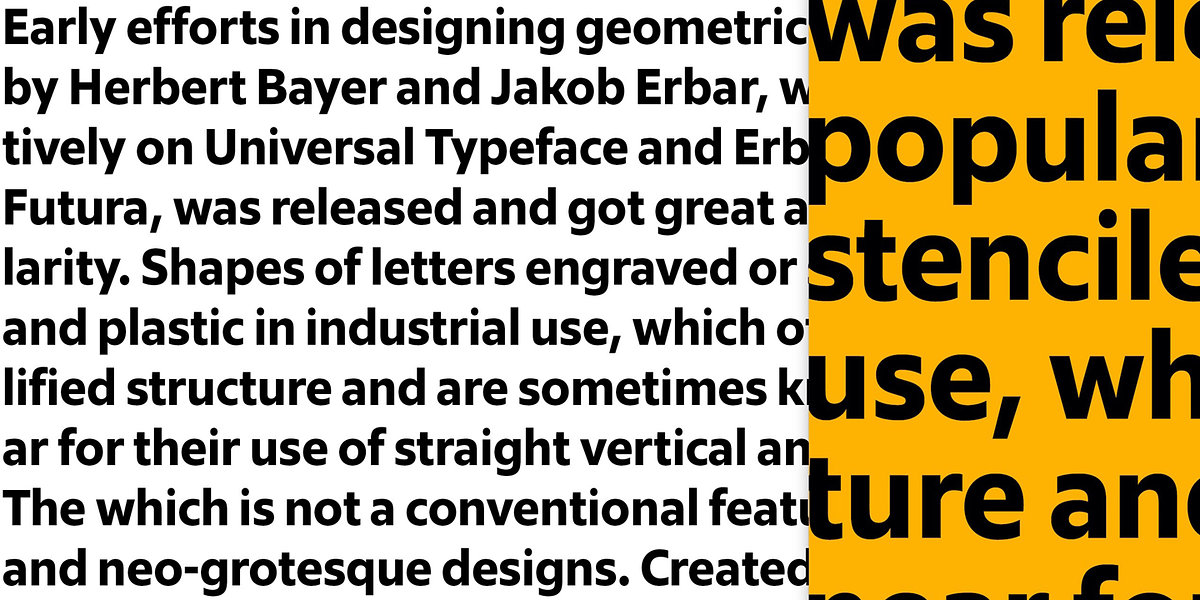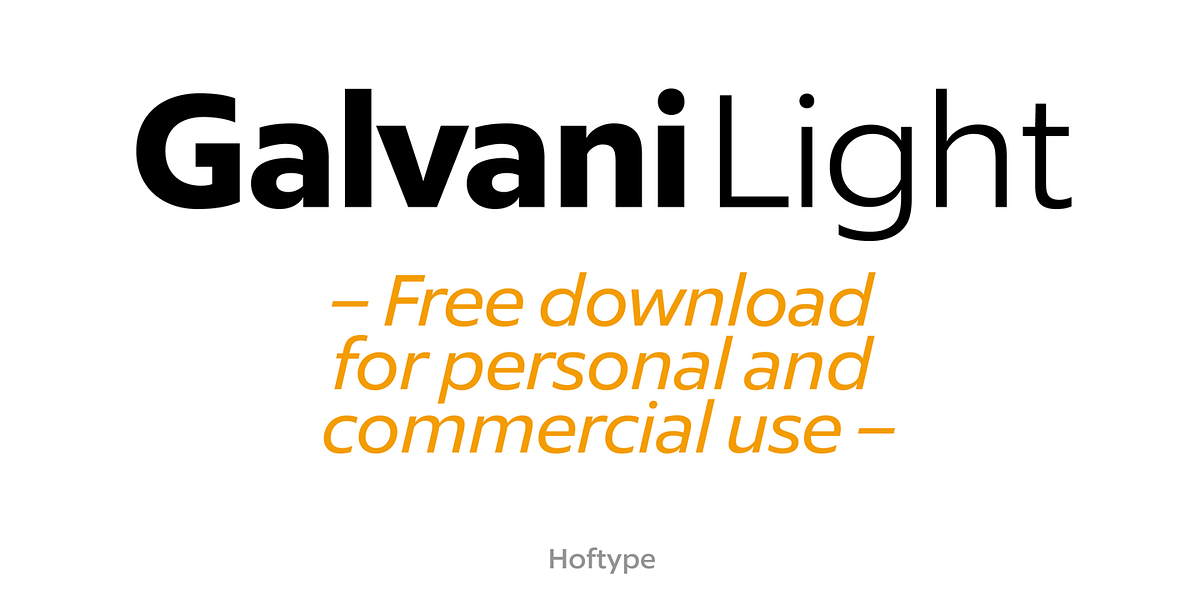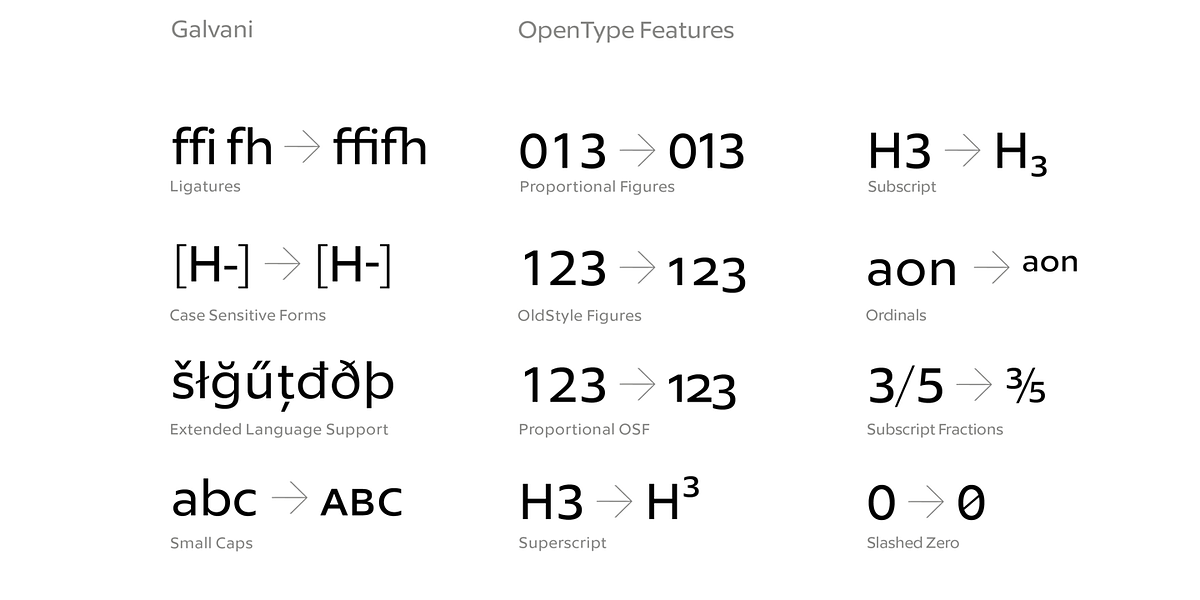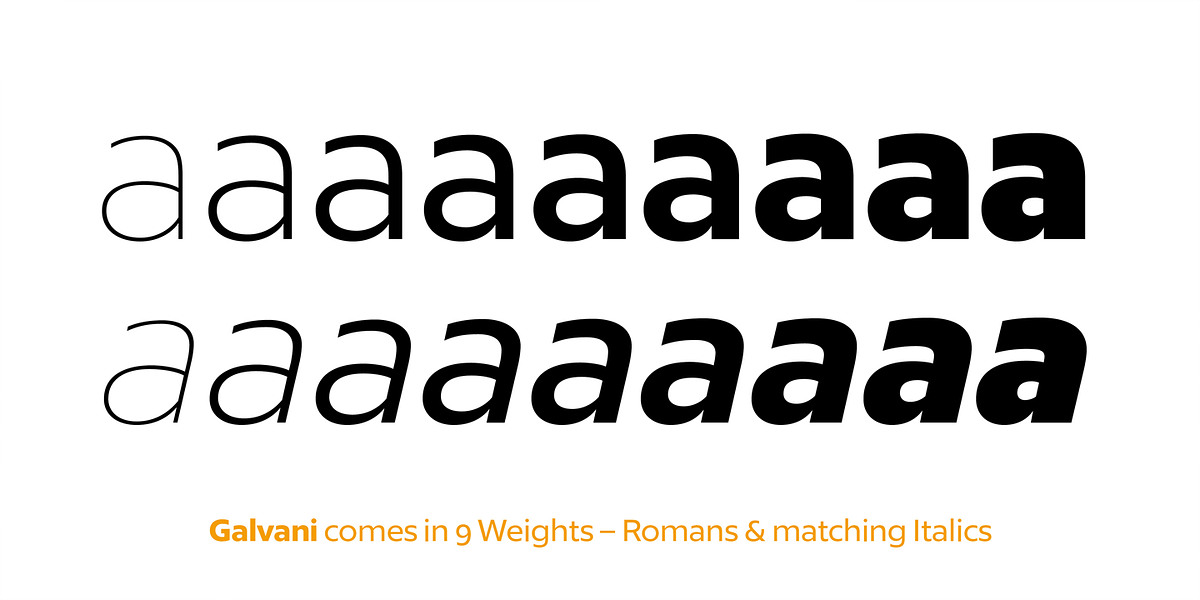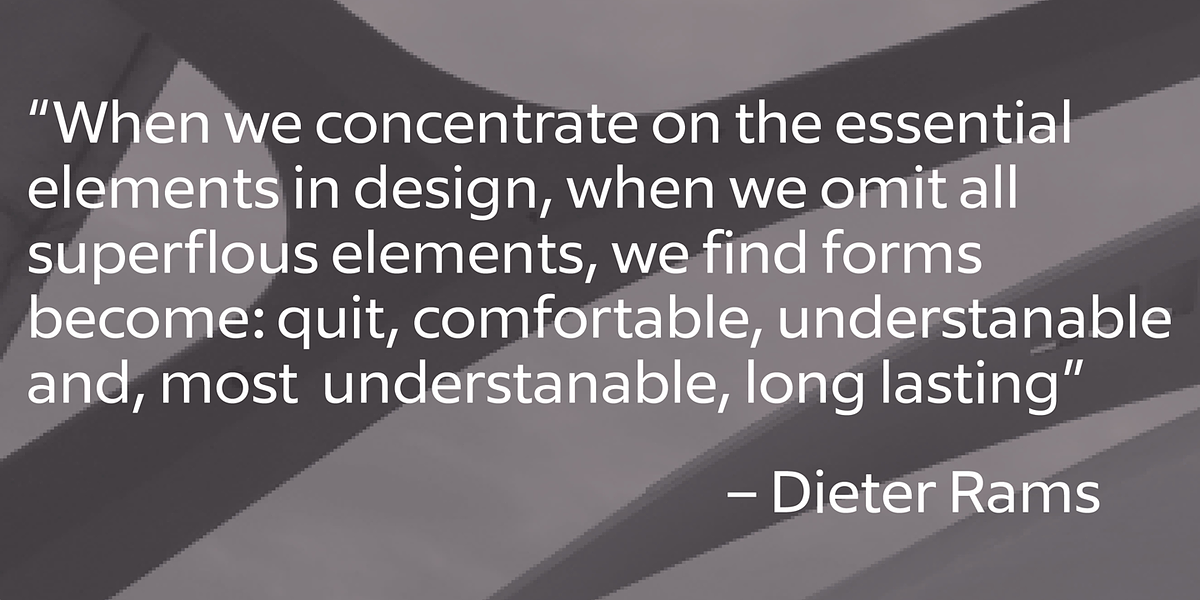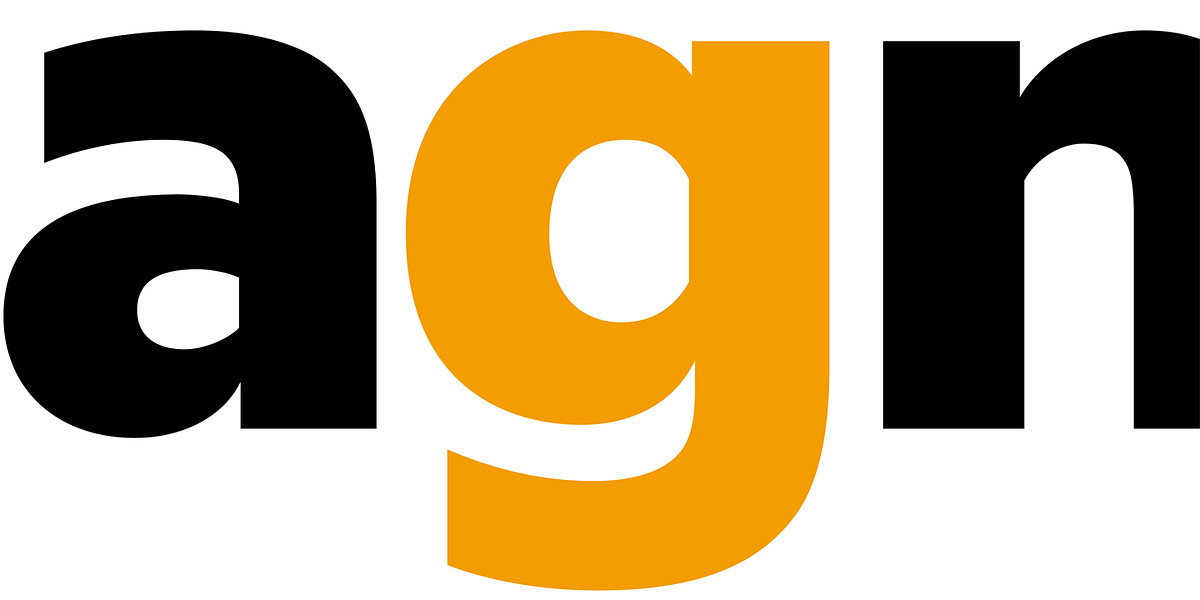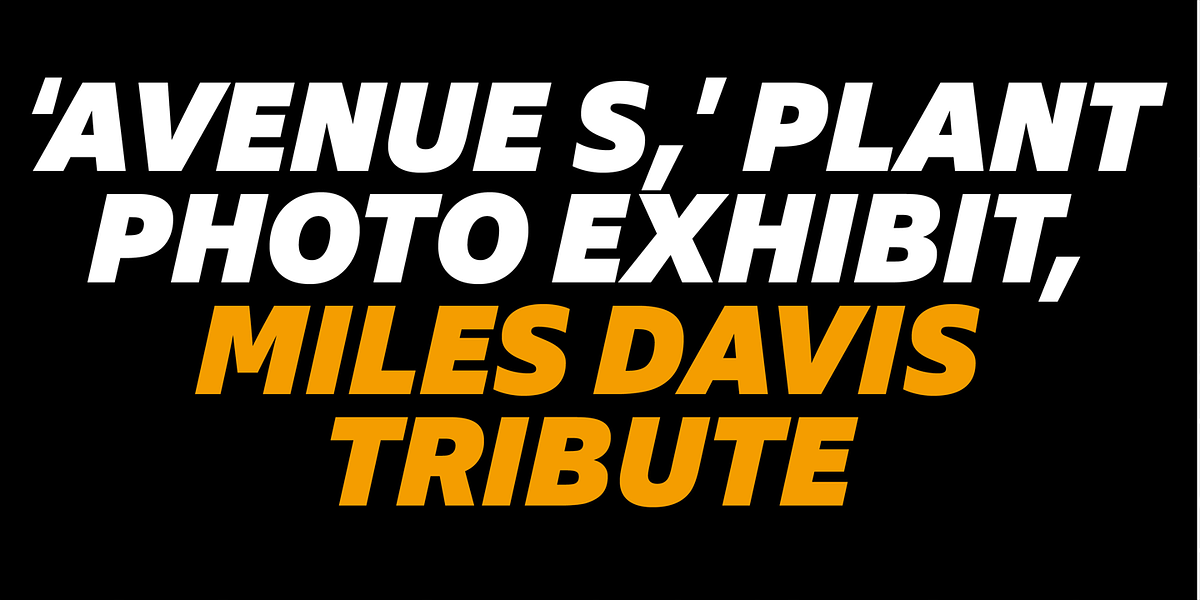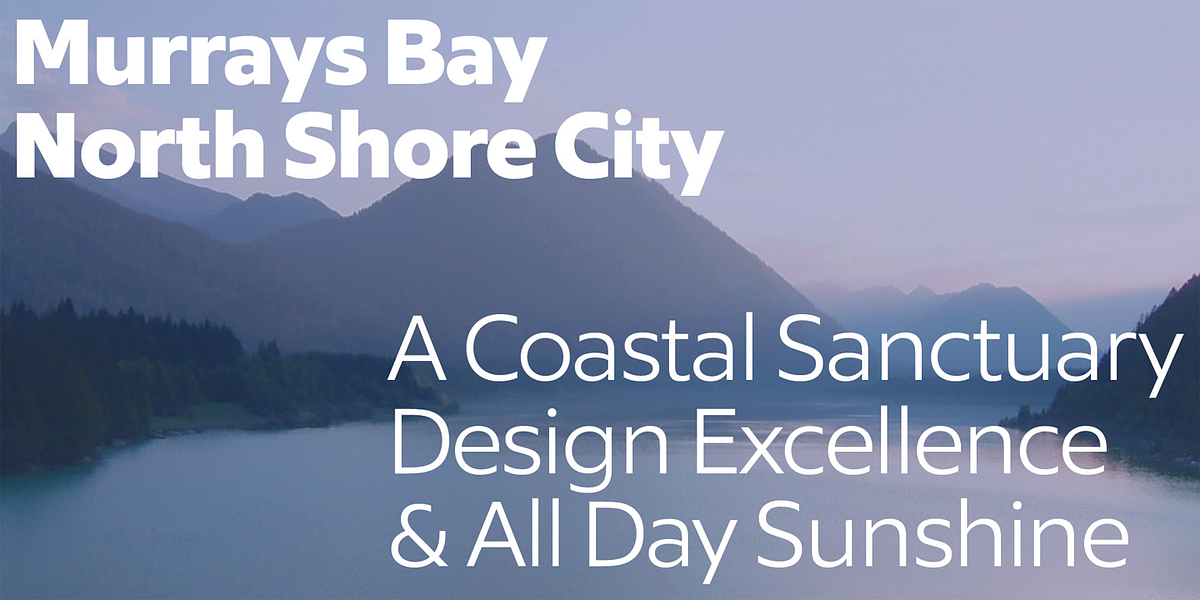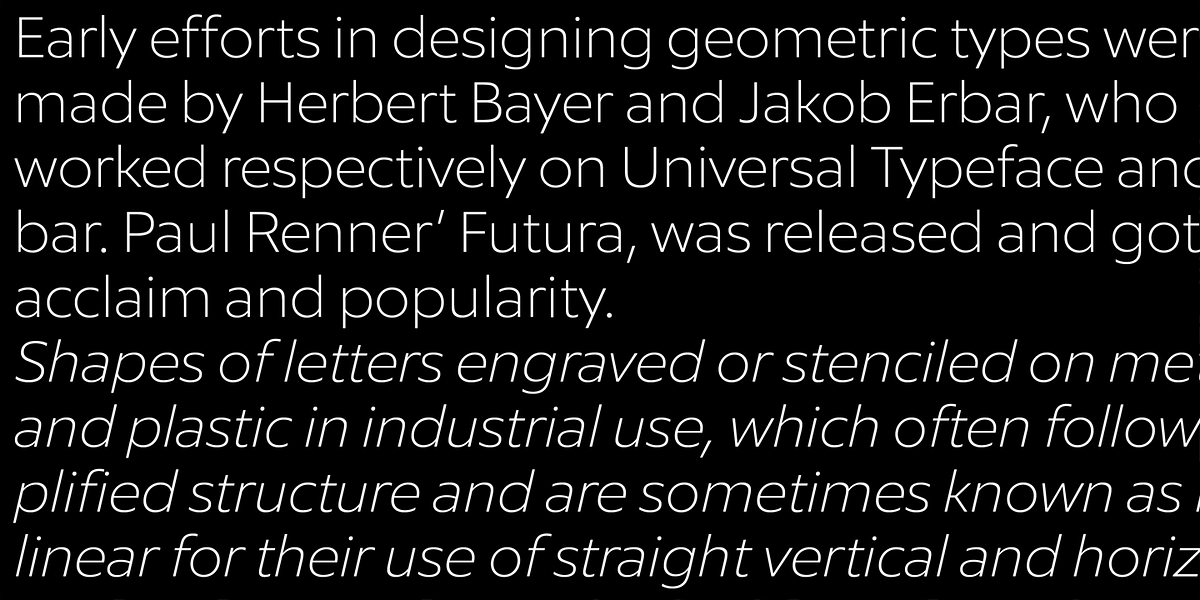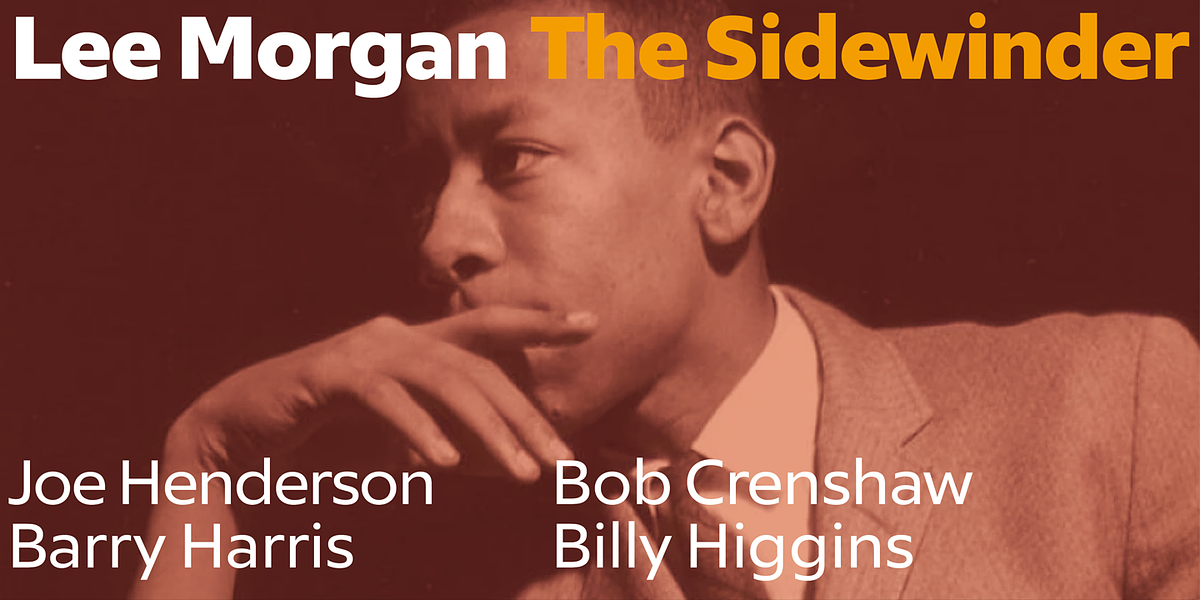
Galvani
Galvani is a modern humanist sans serif font characterized by its geometric forms and clean aesthetic. It features straight lines, rectangular shapes, and a neutral personality suitable for both text and display applications. The font comes in 18 styles, including various weights, and offers extensive typographic features such as ligatures, small caps, and multiple numeral styles.